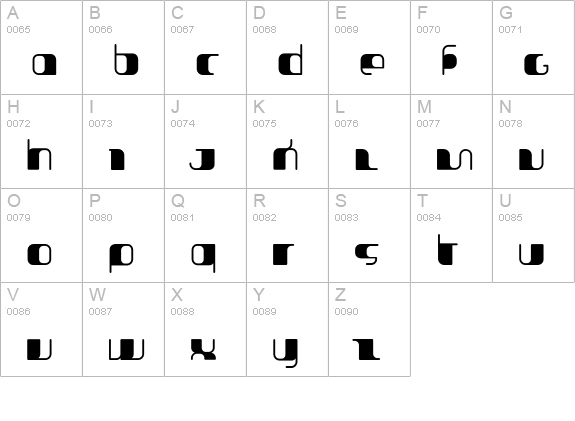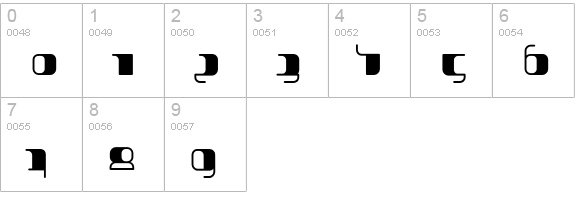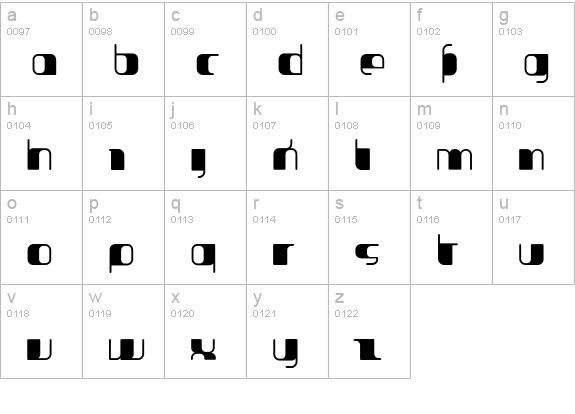
Jakone-Bold is a strong, high-contrast variant in the Jakone typeface family \xE2\x80\x94 well suited to headlines, attention-grabbing titles, and strong calls-to-action.
Jakone-Bold is a remarkable font that exudes strength and boldness in every character. It is a perfect choice for those seeking to make a powerful statement with their typography. With its clean lines and sharp edges, Jakone-Bold commands attention and leaves a lasting impression. This font boasts a modern and sleek design that is versatile and suitable for a wide range of projects. Whether you are designing a logo, creating a poster, or crafting a website, Jakone-Bold will elevate your work to new heights. Its bold and impactful presence will ensure that your message is conveyed with confidence and authority. What sets Jakone-Bold apart is not only its stunning aesthetics but also its accessibility. Unlike many other premium fonts, Jakone-Bold is available for free. Yes, you read that right - this exceptional font can be downloaded at no cost from FontsMarket.com. This means that you can enjoy the benefits of a high-quality font without breaking the bank. So why wait? Take advantage of this incredible opportunity and download Jakone-Bold today. Elevate your designs, captivate your audience, and make a lasting impression with this freely available font.